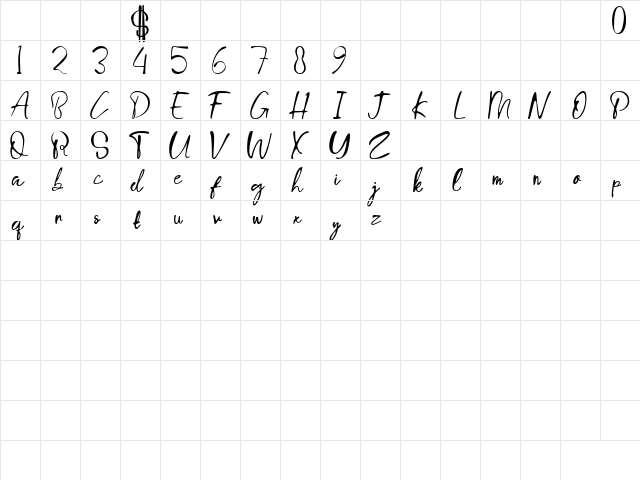
Porto Bianco Demo Regular Font Preview
Porto Bianco Demo Regular
Porto Bianco Demo Regular Font Details
| Foundry | Nariswari!" Creative |
| Designer | Purnomo, Taufik Dwi @ Nariswari |
Design Context for Porto Bianco Demo Typeface
Porto Bianco Demo is a composed and adaptable typeface that performs quietly and consistently across a wide range of design contexts.